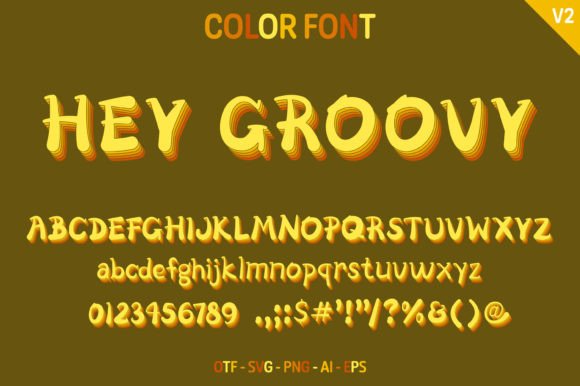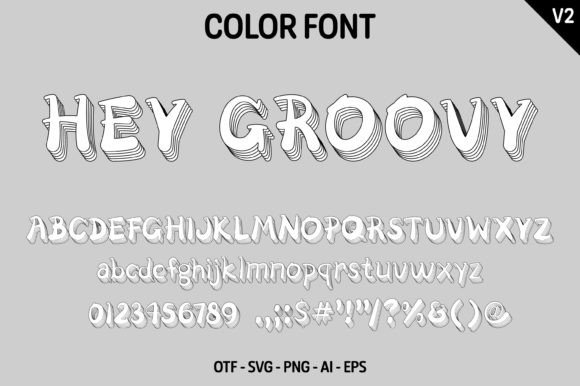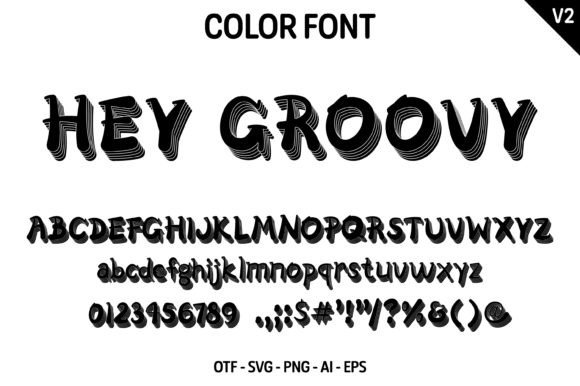
Introduction to Hey Groovy V2 Font Font
Fonts play a crucial role in design, and the Hey Groovy V2 Font font is a typeface that brings both character and versatility to any project. Whether you’re working on a branding project, a website, or a print design, the Hey Groovy V2 Font font offers a unique style that can elevate your work.
Hey Groovy is a fun and retro-inspired font that captures the funky and playful spirit of the 60s and 70s, making it a great choice for designs that require a touch of nostalgia and whimsy.
With its unique and eye-catching letterforms, Hey Groovy is perfect for posters, album covers, and other designs that want to evoke a sense of vintage cool Whether used for headlines or body text, Hey Groovy adds a groovy and memorable touch to any project.
Key Features of Hey Groovy V2 Font Font
Why Choose Hey Groovy V2 Font Font?
The Hey Groovy V2 Font font is more than just a typeface – it’s a design tool that helps you communicate your message with style and clarity. Its unique character set and versatile design make it suitable for a wide range of applications, from elegant invitations to bold headlines.
With its carefully crafted letterforms and balanced proportions, the Hey Groovy V2 Font font ensures readability and visual appeal across all mediums.
What makes Hey Groovy V2 Font font special?
The Hey Groovy V2 Font font stands out with its unique design, exceptional readability, and versatility across various design applications.